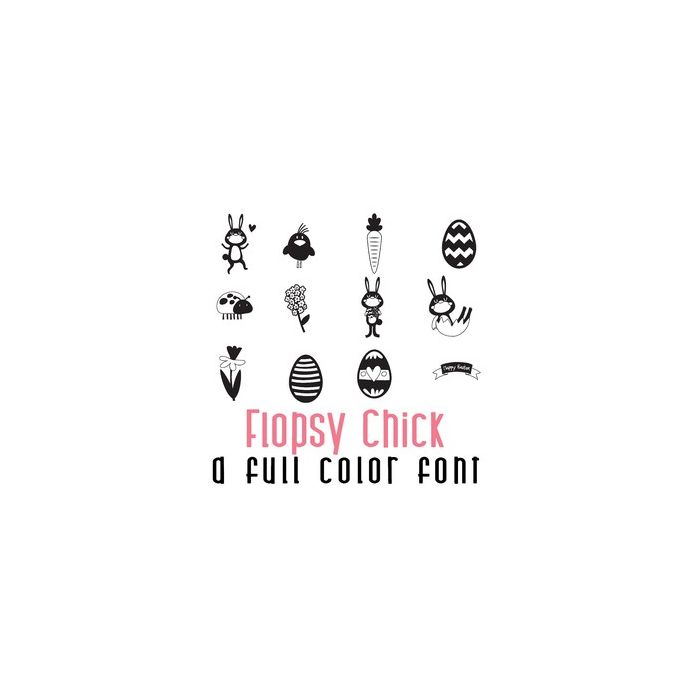
Flopsy Chick Doodlebat Font
This fun doodlebat font features 26 Easter and Spring images. Perfect for cards, crafts, gifts, decor, scrapbook pages, planner stickers, and more!